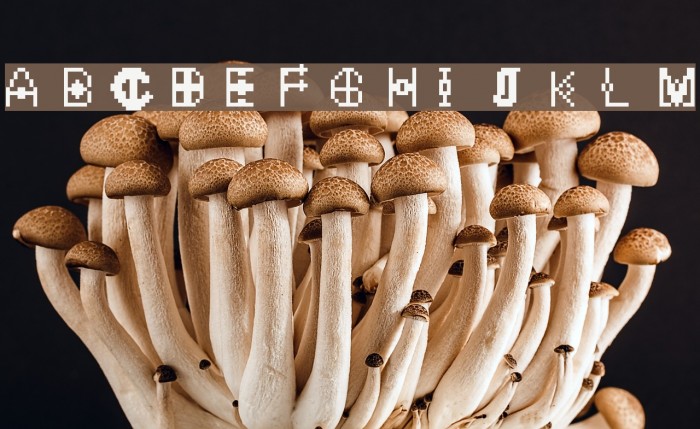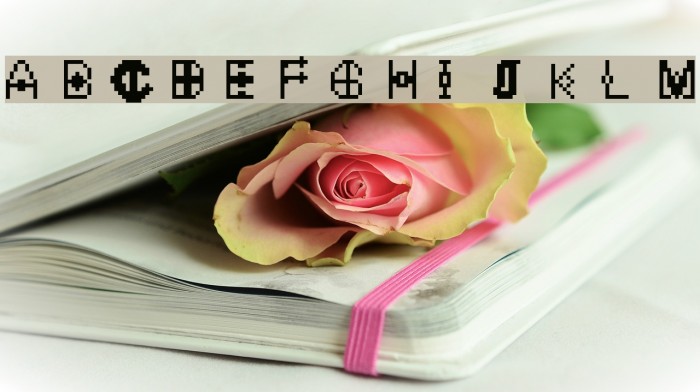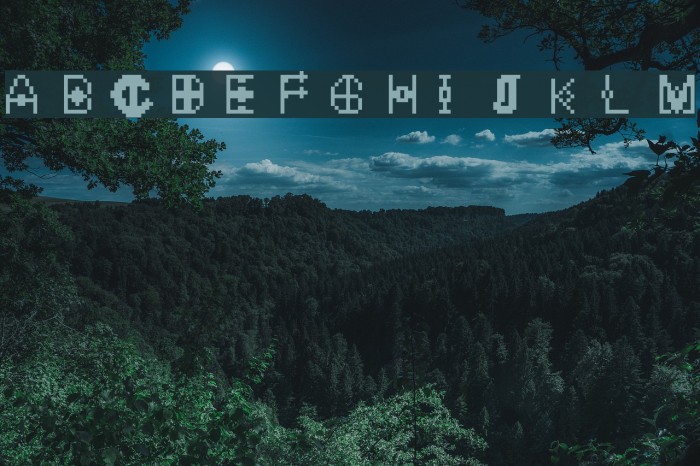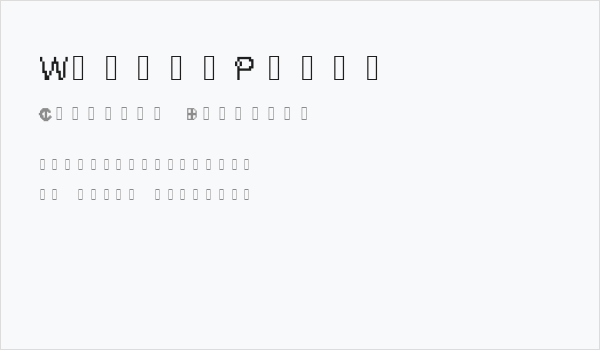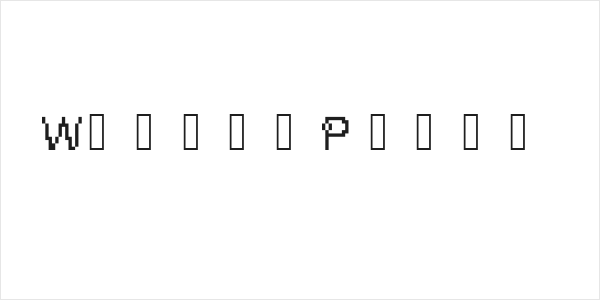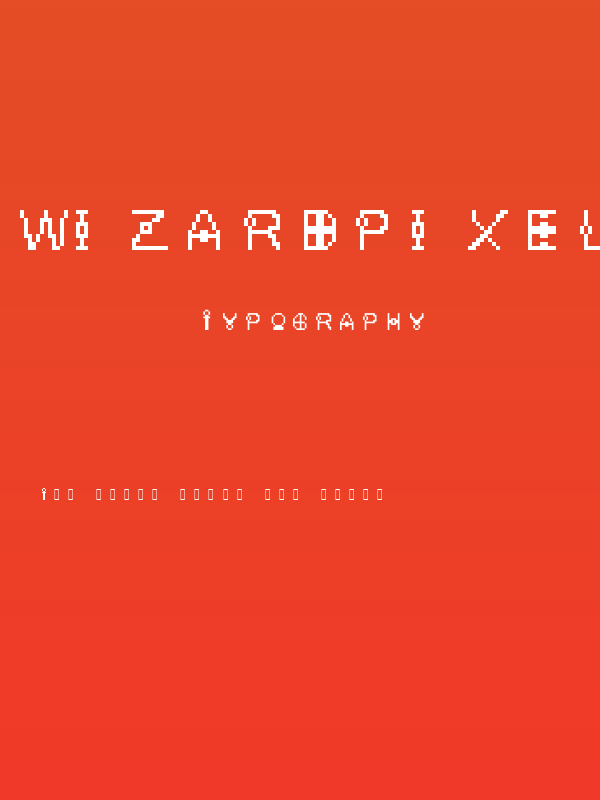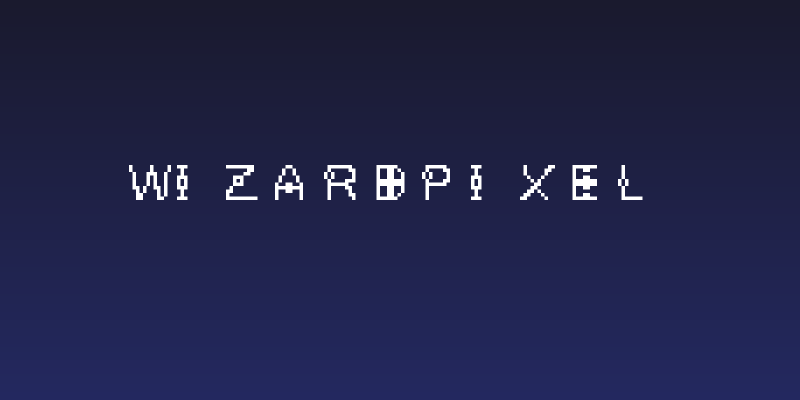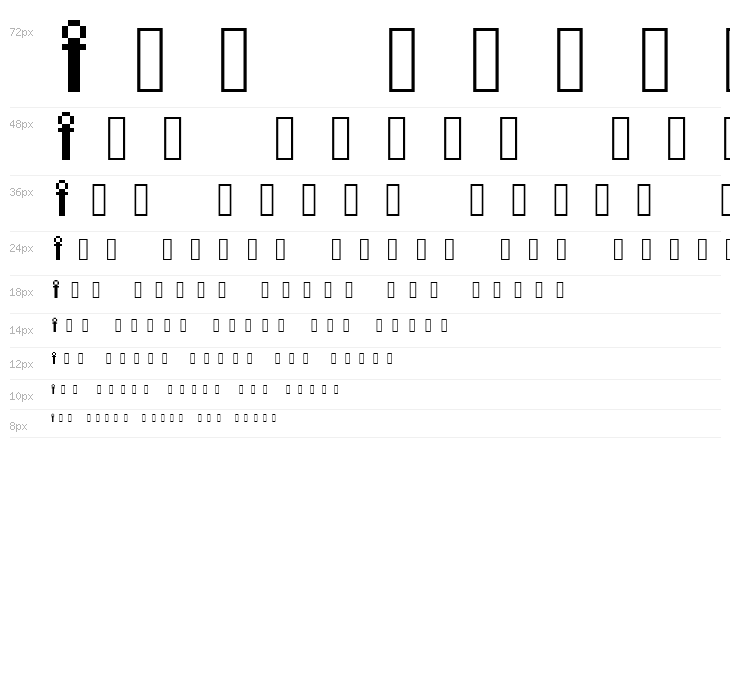
WizardPixel Font
WizardPixel Description
This font features a pixelated, retro style reminiscent of early video game graphics. Each character is constructed with a blocky, grid-like appearance, giving it a distinct digital aesthetic. The uppercase letters are bold and prominent, while the lowercase letters maintain the same pixelated structure, ensuring consistency across the typeface. The numbers and special characters follow the same design principles, making them easily recognizable and cohesive with the overall style. This font is ideal for projects that aim to evoke nostalgia or a vintage digital feel.
| Proposed Projects | Perfect for video game design, retro-themed posters, digital art, and any project seeking a nostalgic or vintage digital look. |